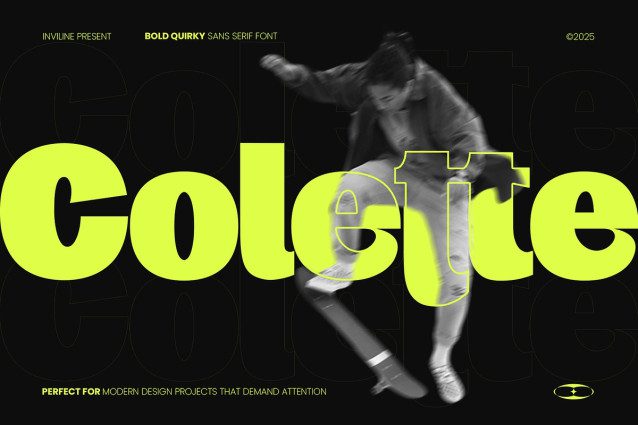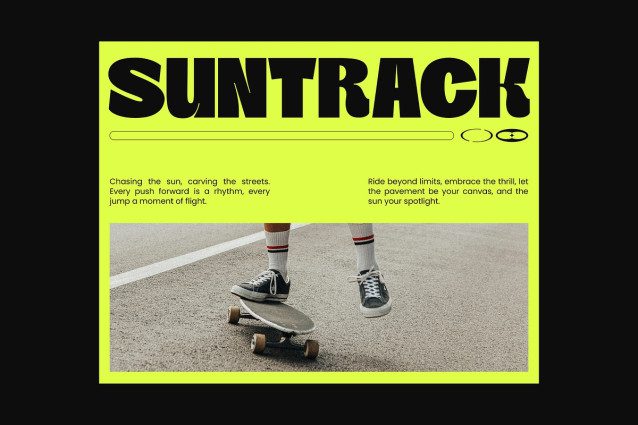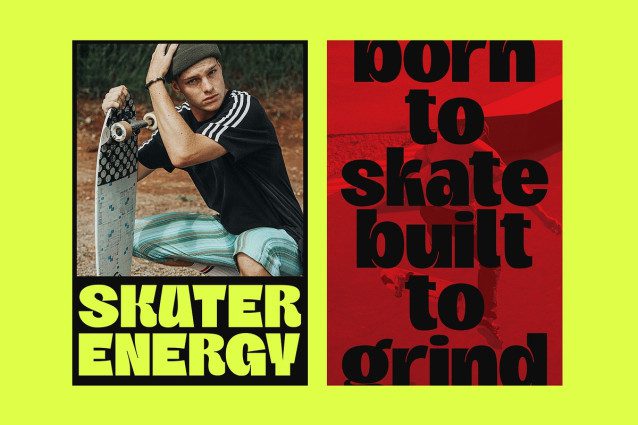
Colette Sans Serif Font
Colette Sans Serif Font a playful and eye-catching typeface designed to make a statement! Perfect for modern branding, marketing materials, and creative projects, this font combines boldness with a unique twist. Its friendly and unconventional style adds personality to any design, ensuring your message stands out. Whether you’re creating posters, logos, or social media graphics, this font is the ideal choice for those who want to leave a lasting impression. Embrace the fun and let your creativity shine with our Bold Quirky Sans Serif Font!